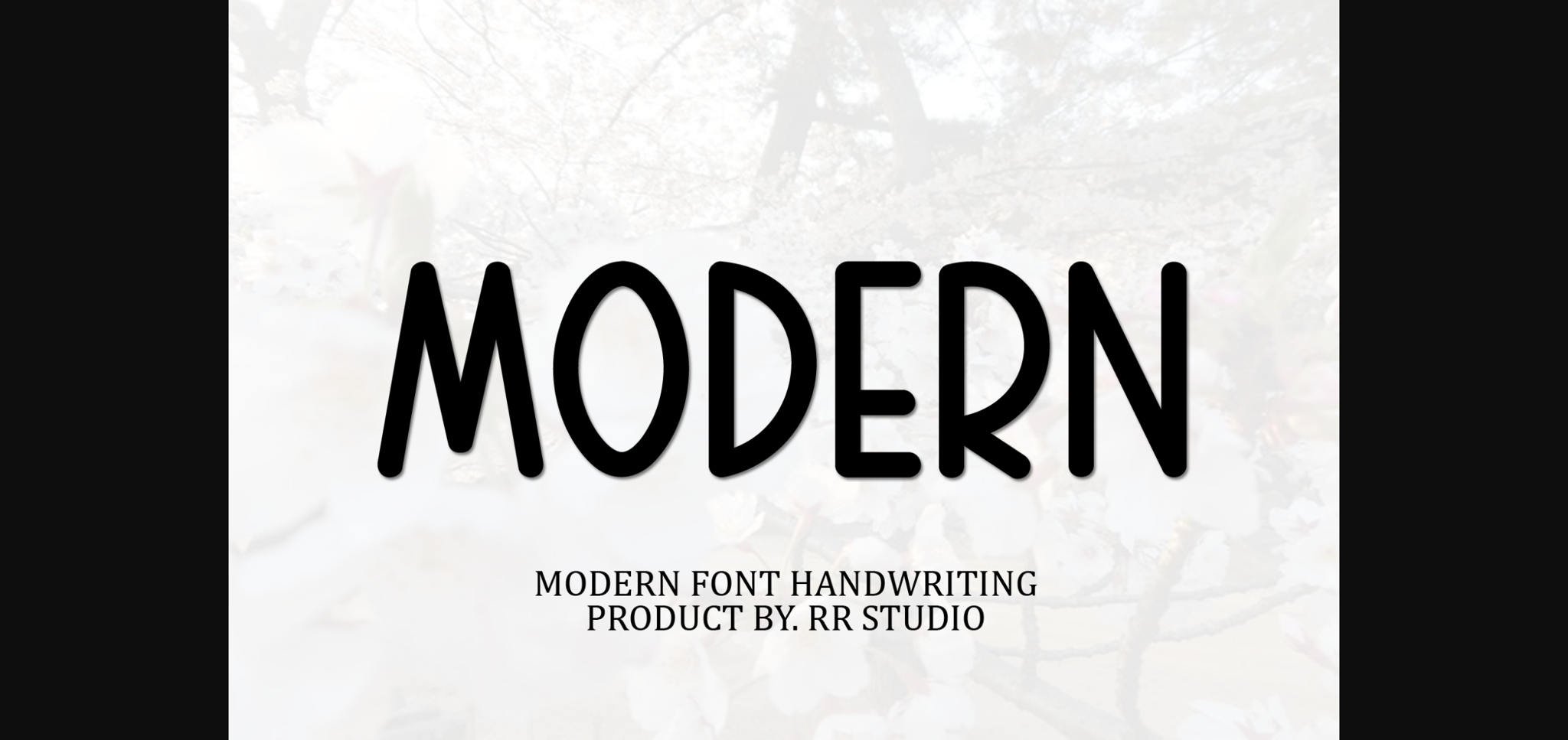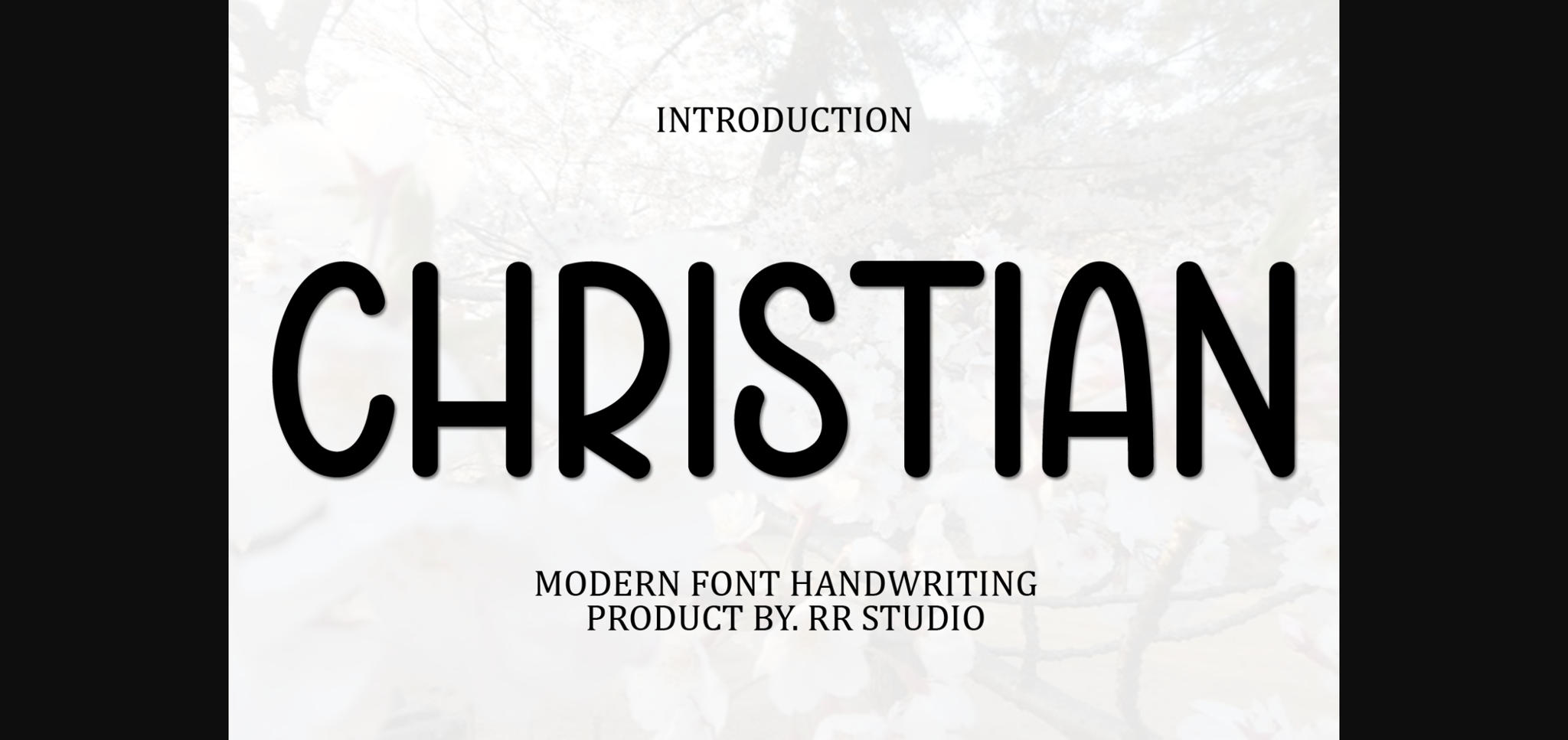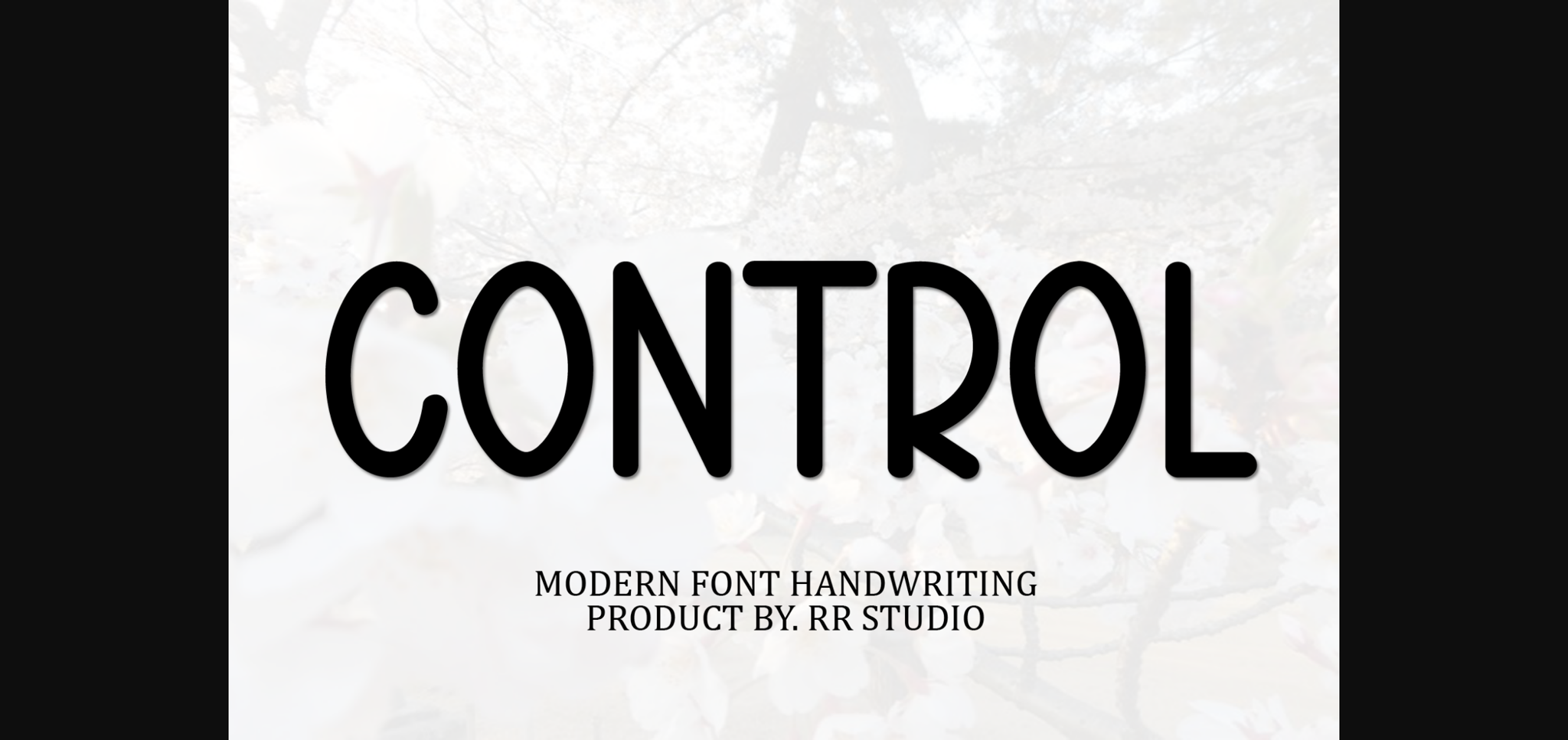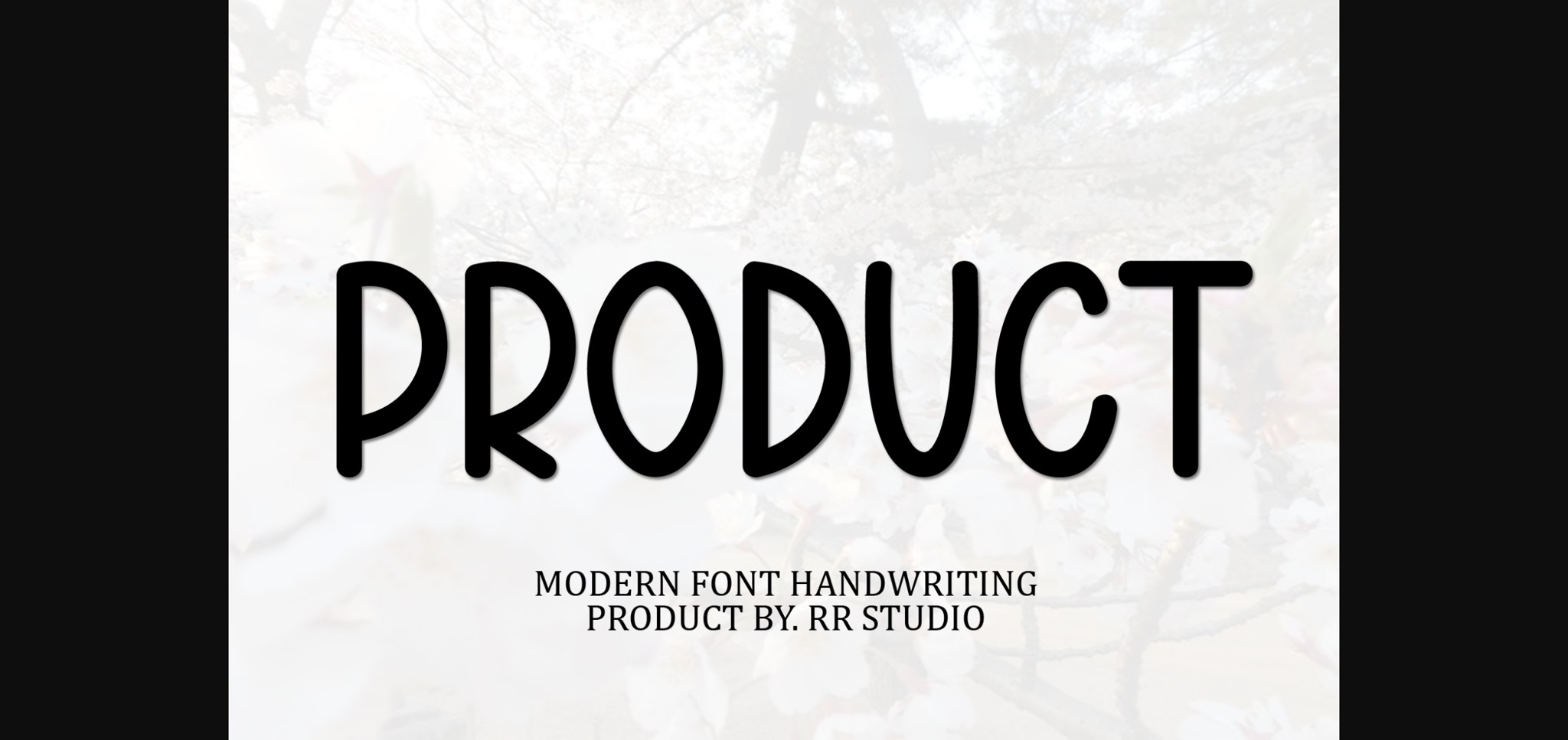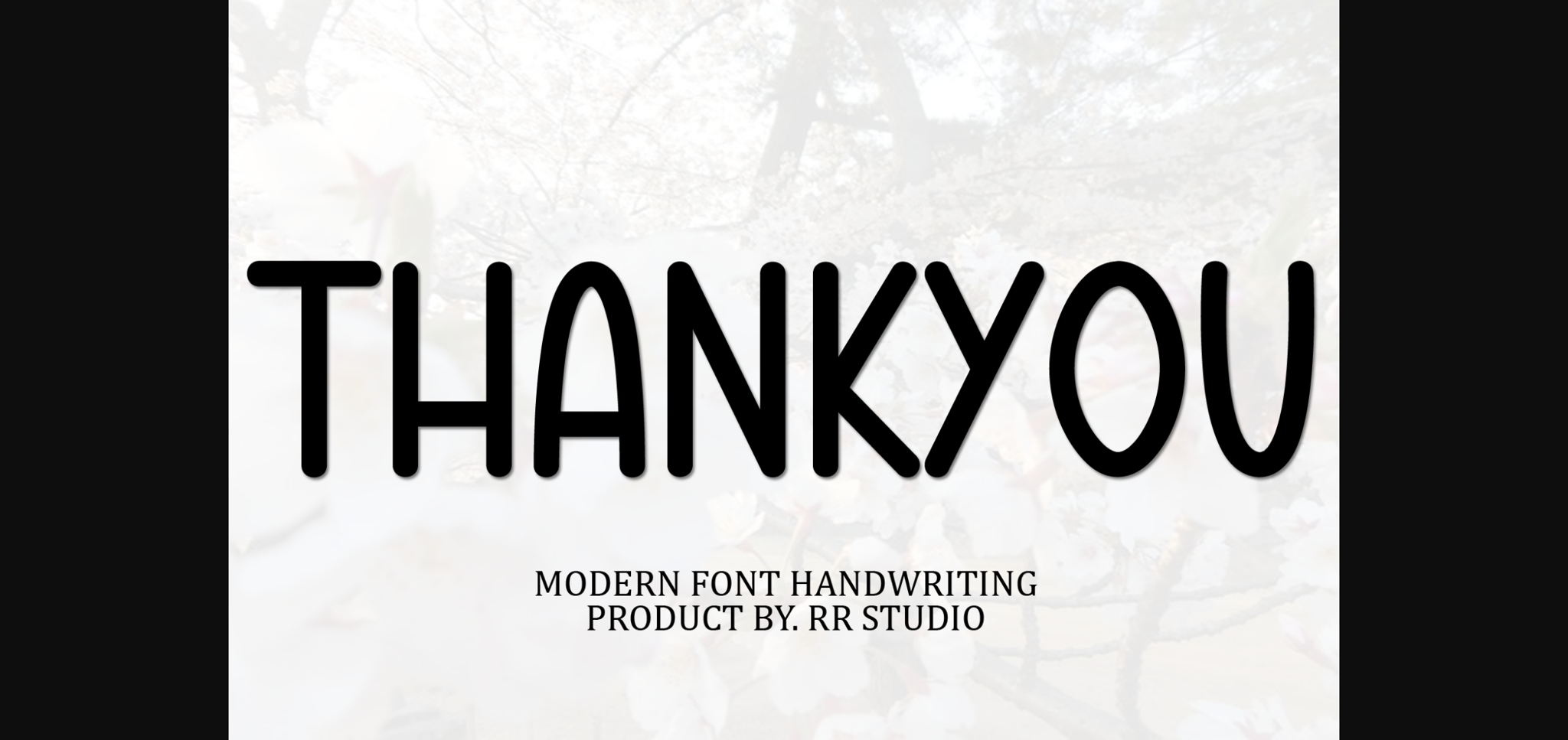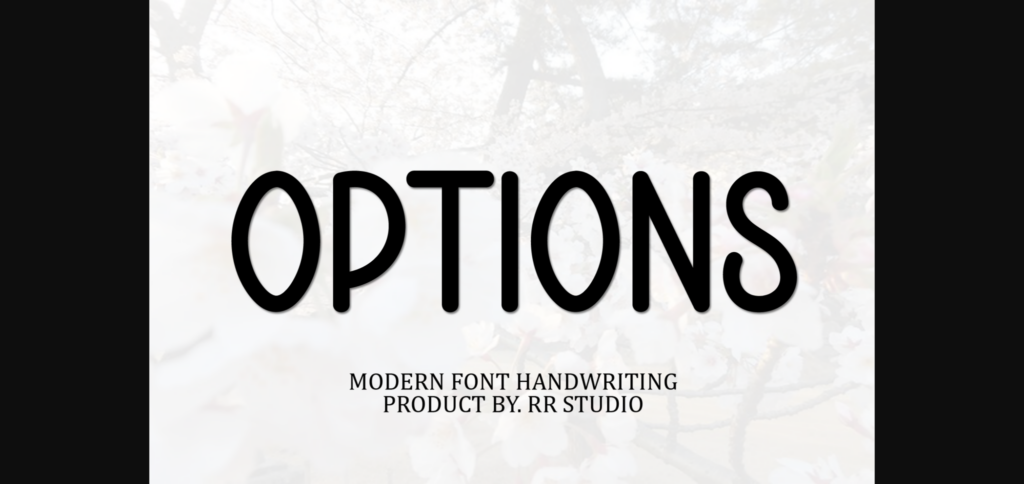
Christian Font
About Christian Font
Christian is a straightforward and tidy sans-serif font that embodies simplicity and clarity. Its clean lines and balanced proportions make it perfect for various design applications, from body text in publications to headers on websites. This font maintains readability while offering a modern and uncluttered aesthetic for your projects.